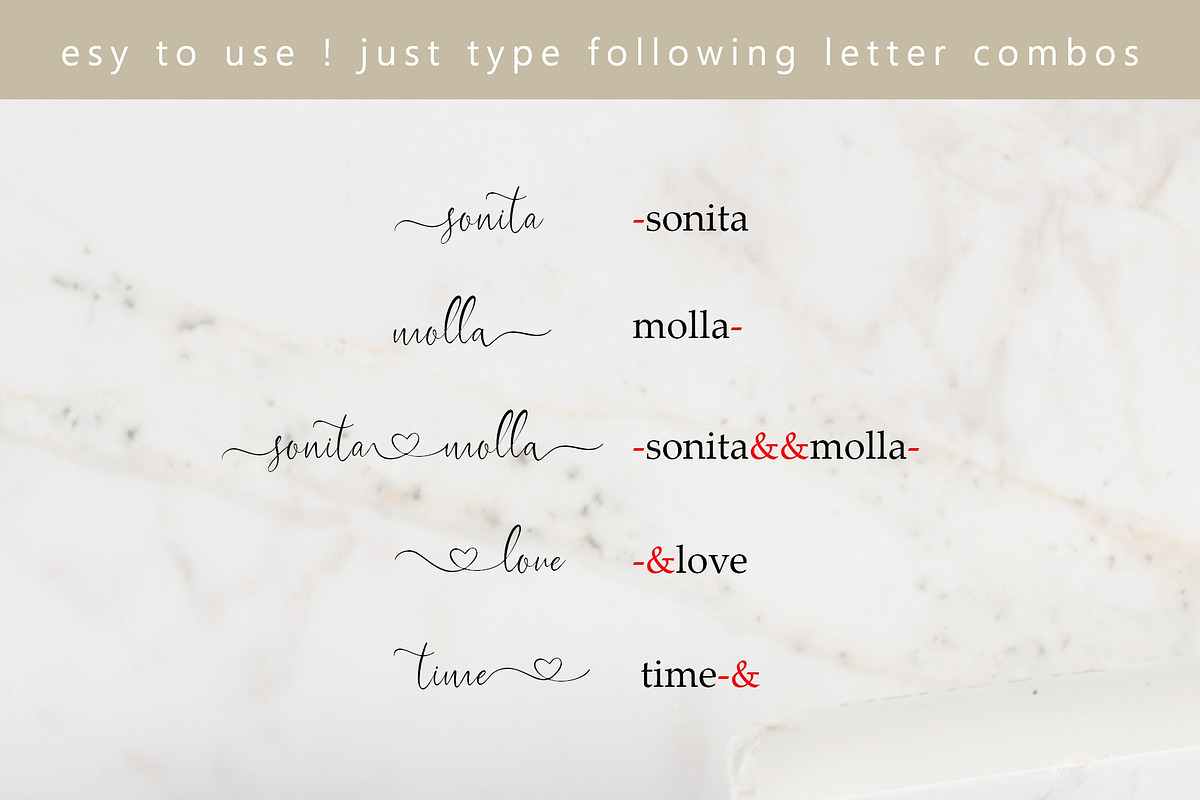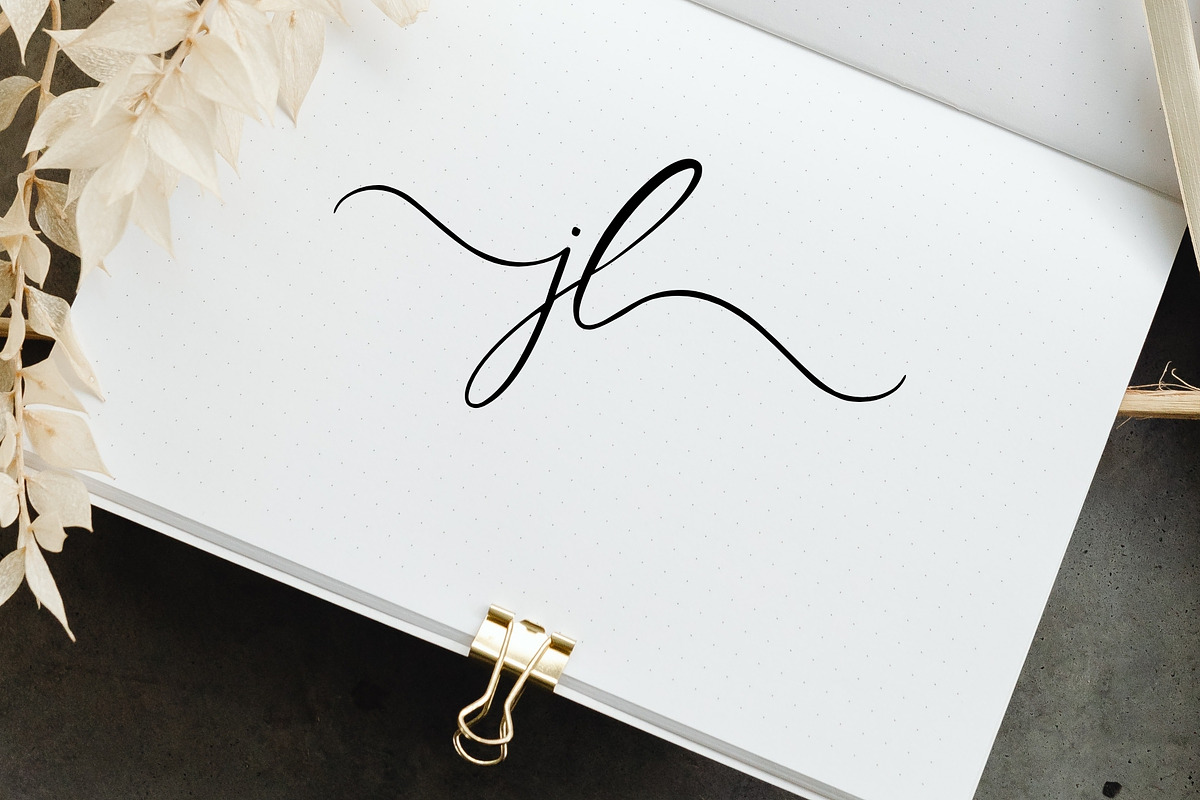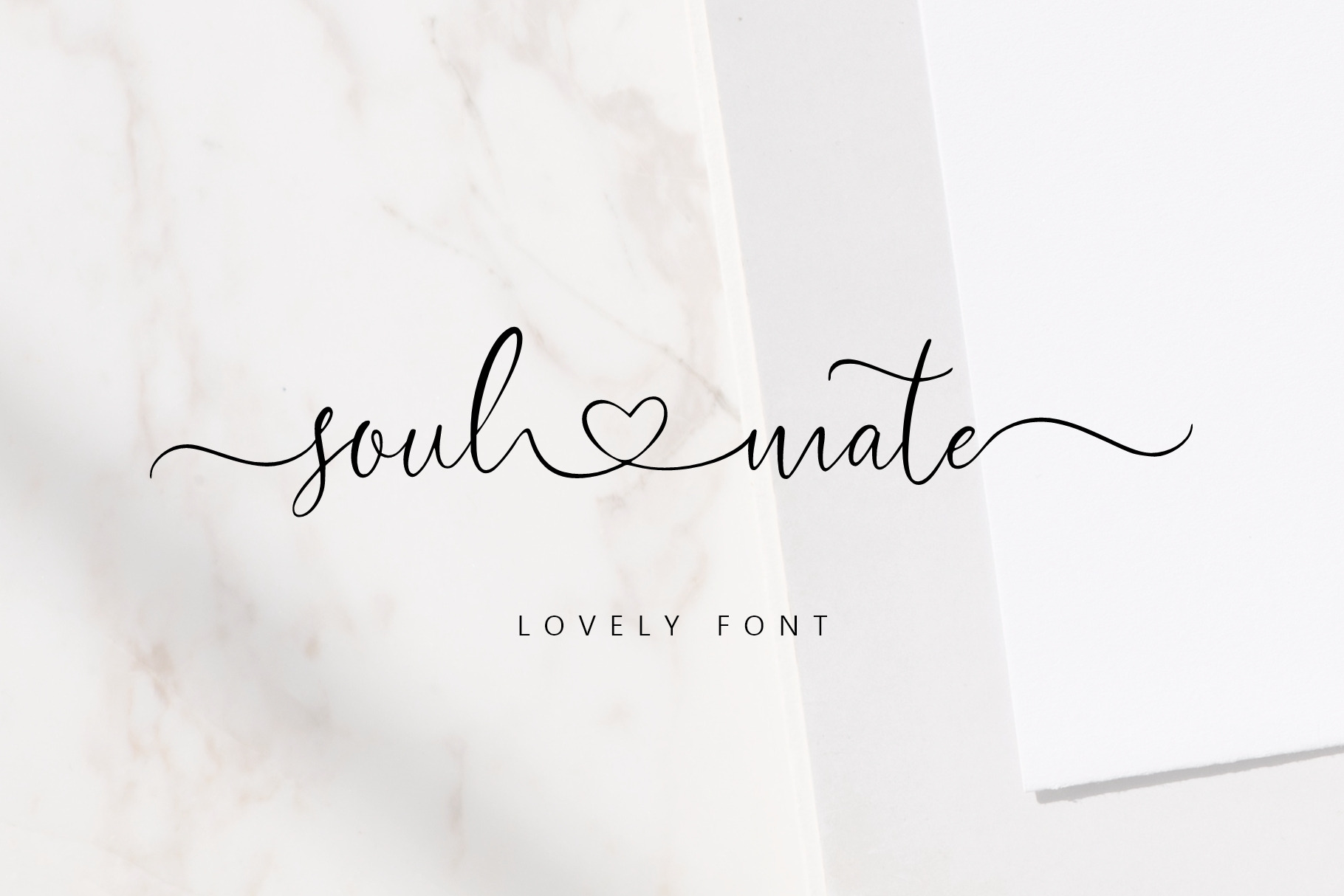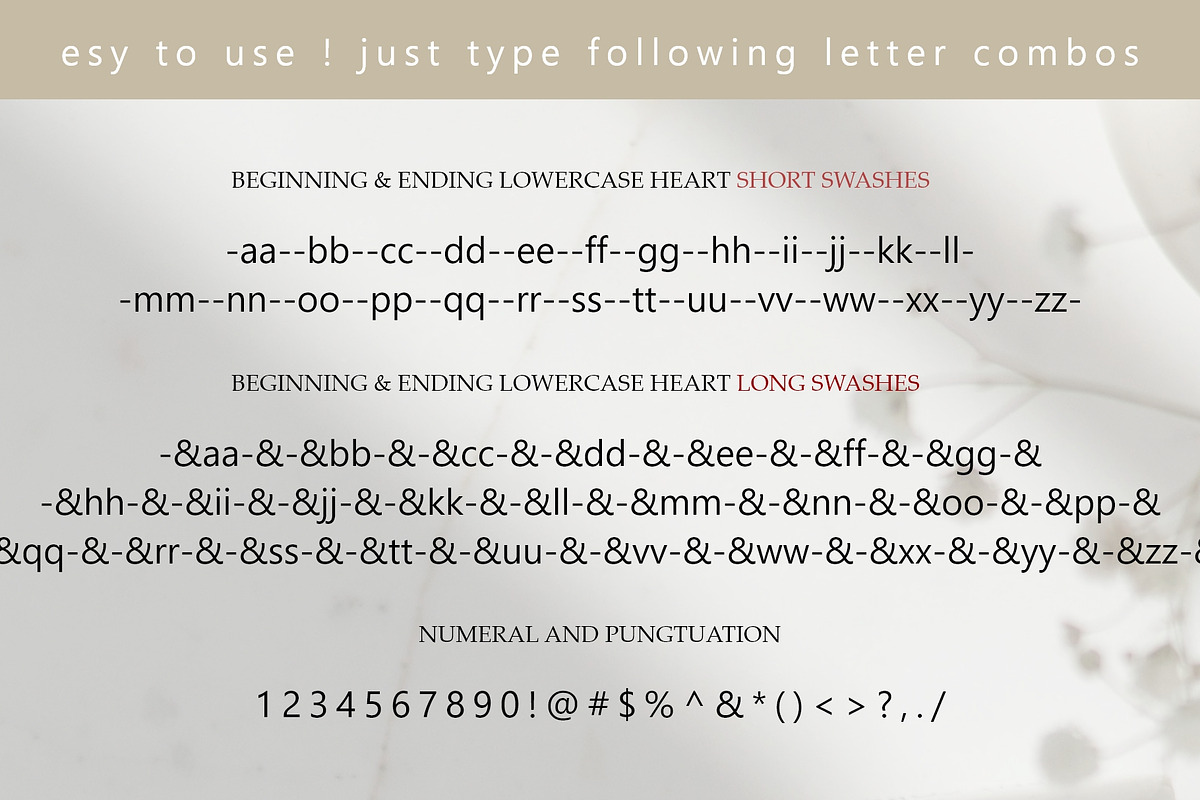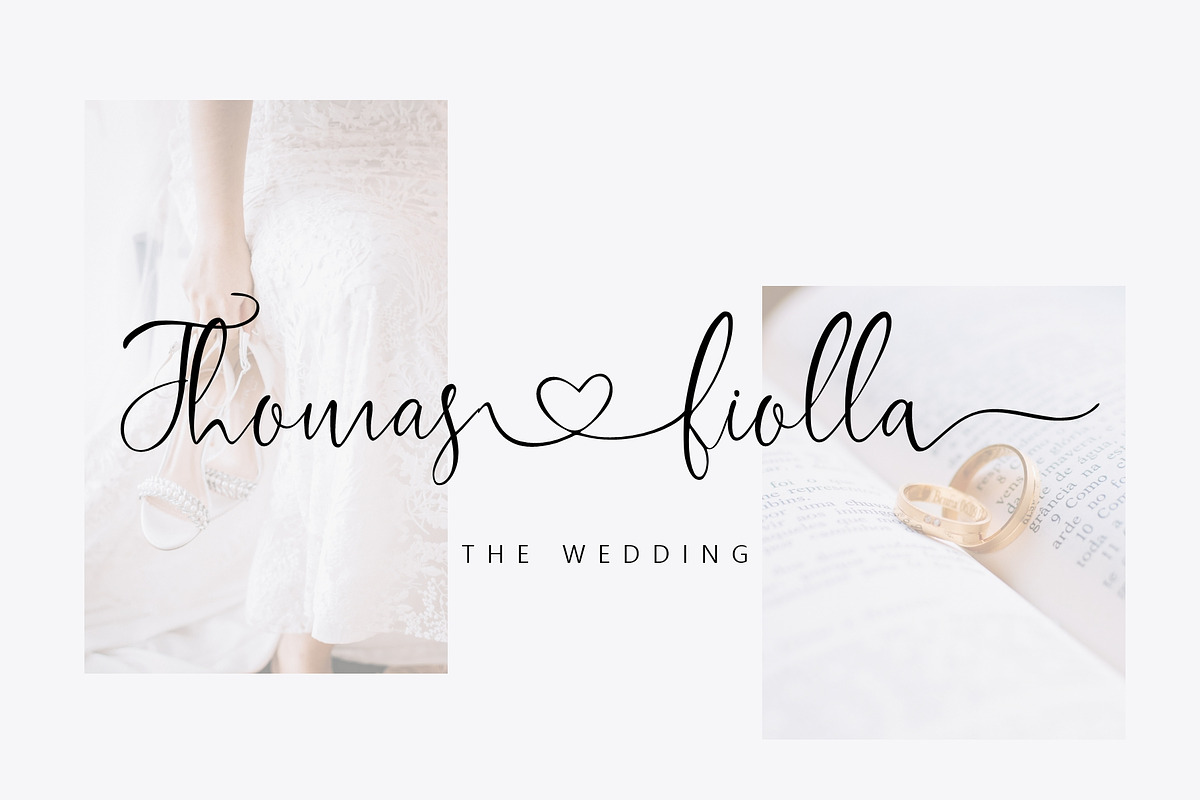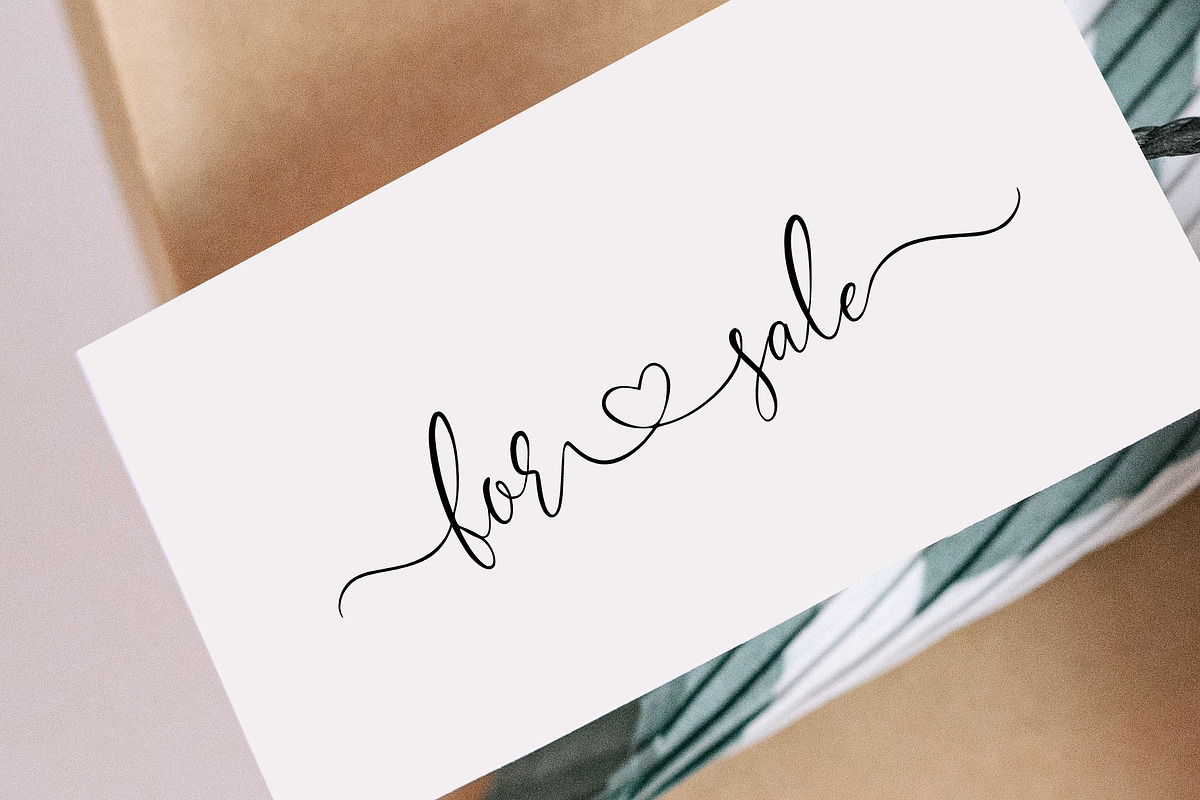
Soul And Mate Lovely Font
This font is a beautiful Lovely Font
This font is designed to be easy to use. you can access all glyphs and sweeps easily! - see the preview image to see the instructions for use.